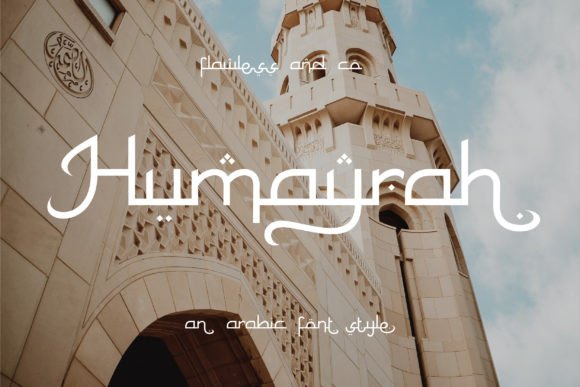
Journey into the world of captivating Arabic typography with Humayrah, a font born from the fusion of tradition and innovation. Humayrah is not just a mere font; it's an artistic expression that dances gracefully on the digital canvas, enchanting the eyes with its undeniable beauty. Each letterform is meticulously crafted, embodying the very essence of elegance and sophistication, making your creations shine with unparalleled allure.
Humayrah's graceful curves and delicate strokes evoke a sense of harmony and balance, inviting readers to immerse themselves in the sheer beauty of words. It's a font that breathes life into your designs, transforming ordinary text into exquisite works of art. With Humayrah, you've got the power to captivate your audience, leaving a lasting impression that lingers long after they've closed the page.
Step into the spotlight with Humayrah and watch as your designs take center stage, commanding attention and admiration. Its distinctive style lends a touch of luxury and sophistication to everything it adorns, from elegant invitations to mesmerizing social media posts. Elevate your branding, add a touch of magic to your marketing materials, or create enchanting digital content that captivates your audience with Humayrah's captivating presence.
Whether you're a seasoned designer, a budding entrepreneur, or simply someone with a passion for typography, Humayrah is the perfect companion to bring your creative visions to life. Its versatility shines in both print and digital applications, effortlessly adapting to various mediums to ensure your message leaves an unforgettable mark. With Humayrah, the possibilities are endless, allowing you to weave your words into a tapestry of visual delight.
So, if you seek a font that transcends the ordinary and ignites the imagination, look no further than Humayrah. Let its exquisite beauty infuse your designs with timeless elegance and make your words dance with a grace that captivates hearts. Embrace Humayrah today and unlock a world of typographic wonders that will leave your audience breathless.